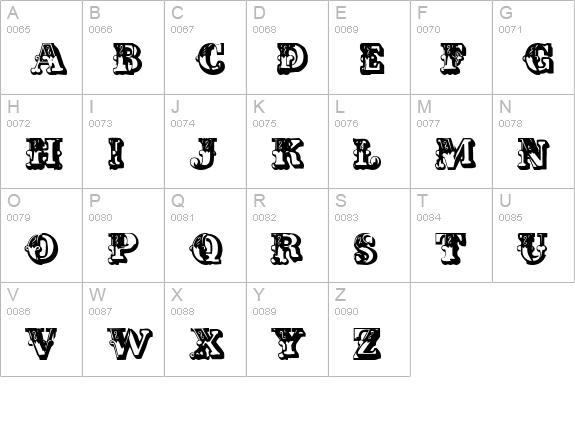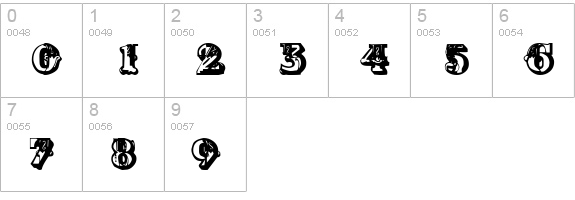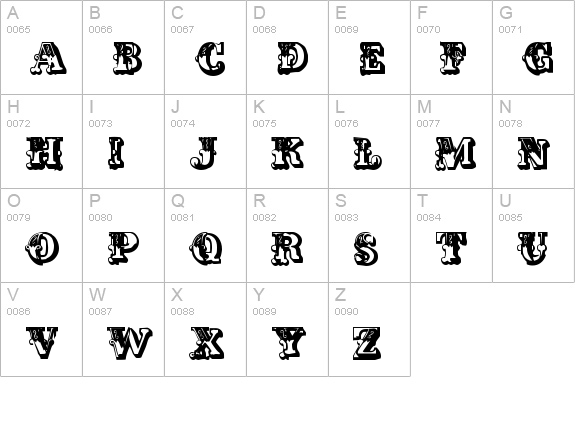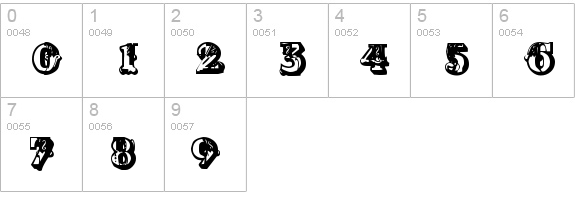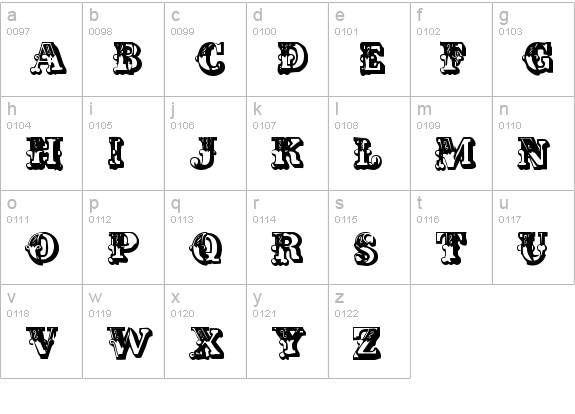
Melancholie4 Font Details
Melancholie4 font is a beautifully crafted typeface that exudes a sense of melancholy and nostalgia. With its intricate details and delicate curves, this font captures a unique blend of elegance and emotion. The graceful letterforms create a captivating rhythm that draws the reader in, evoking a feeling of introspection and contemplation. This versatile font is perfect for a wide range of design projects, from branding to editorial design. Whether you're looking to add a touch of sophistication to your work or convey a sense of wistfulness, Melancholie4 font delivers with its timeless appeal. Best of all, Melancholie4 font is available for free download at FontsMarket.com. So why wait? Elevate your designs with this exquisite typeface today and let its charm and elegance speak for itself.